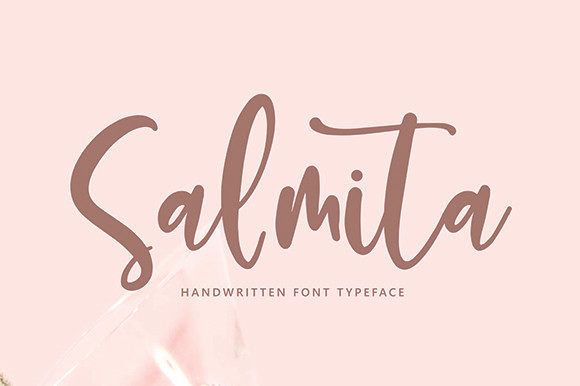
Introducing Salmita Font: An Enchanting Script Font for Tattoos, Logos, and Creative Designs
Step into the realm of elegance and grace with Salmita Font, a captivating script font that exudes sophistication and timeless beauty. Inspired by classic calligraphy, Salmita Font is a masterpiece crafted to add a touch of refinement to your creative endeavors.
With its contemporary atmosphere and impeccable form, Salmita Font strikes the perfect balance between thin and thick strokes, creating a visually stunning aesthetic that commands attention. This font is a versatile chameleon, effortlessly adapting to a wide range of design projects, from tattoos and logos to branding and social media graphics.
As a tattoo font, Salmita Font's fluid lines and graceful curves lend an air of artistry and individuality to your body art. Its distinct style ensures that your tattoo will stand out as a unique expression of your personality.
For logo designers, Salmita Font offers a touch of elegance and sophistication. Its ability to convey a sense of heritage and tradition makes it an ideal choice for businesses looking to establish a strong and lasting impression.
Salmita Font also shines in branding and social media graphics. Its ability to elevate ordinary text into captivating visuals adds a touch of magic to your marketing efforts. Engage your audience with stunning visuals that leave a lasting impact.
Salmita Font's versatility extends to invitations, greeting cards, and other personal stationery items. Its timeless appeal adds a touch of charm and elegance to any occasion.
With Salmita Font, you have the power to transform your creative visions into reality. Its user-friendly interface and extensive character set make it a joy to use, ensuring a seamless and enjoyable design experience.
Experience the beauty of Salmita Font today and unlock a world of creative possibilities. Let your designs blossom with elegance and grace, leaving an indelible mark on your audience.